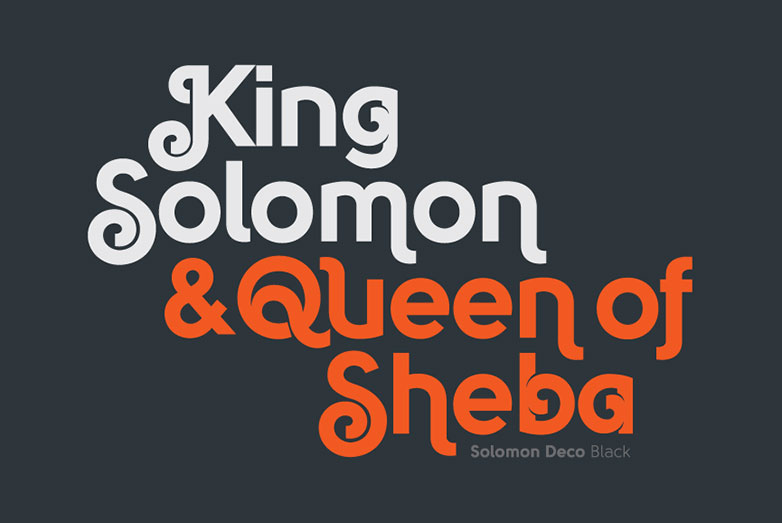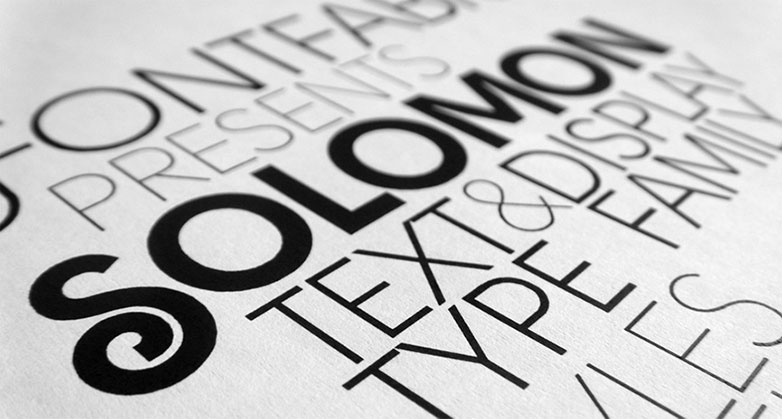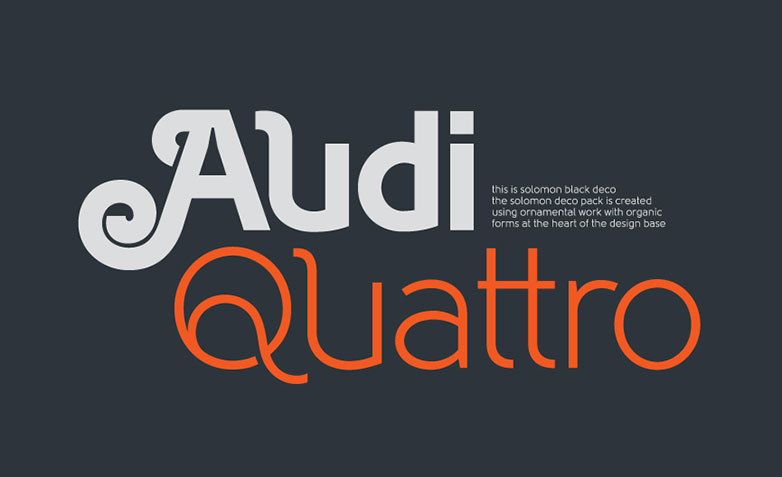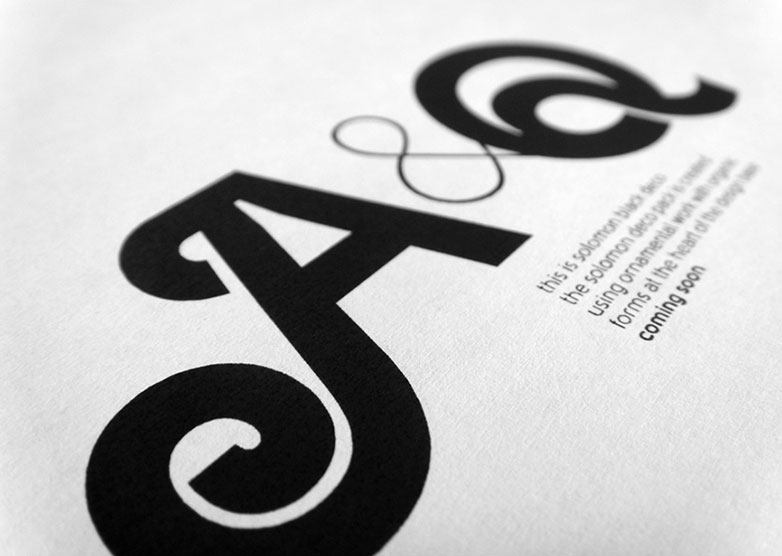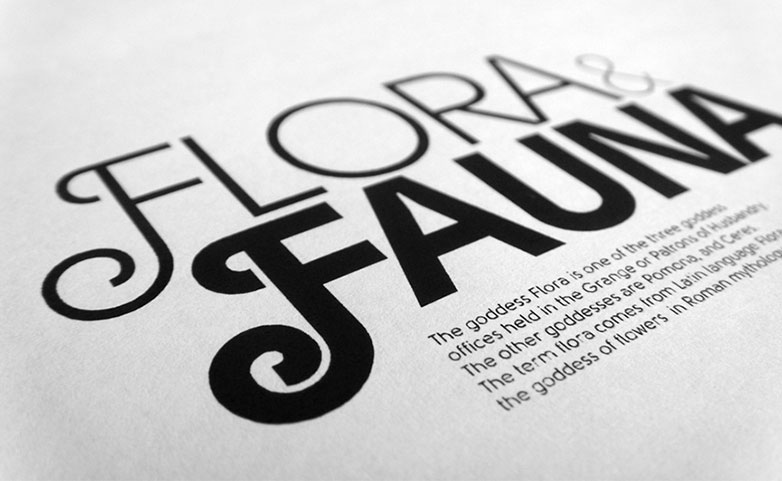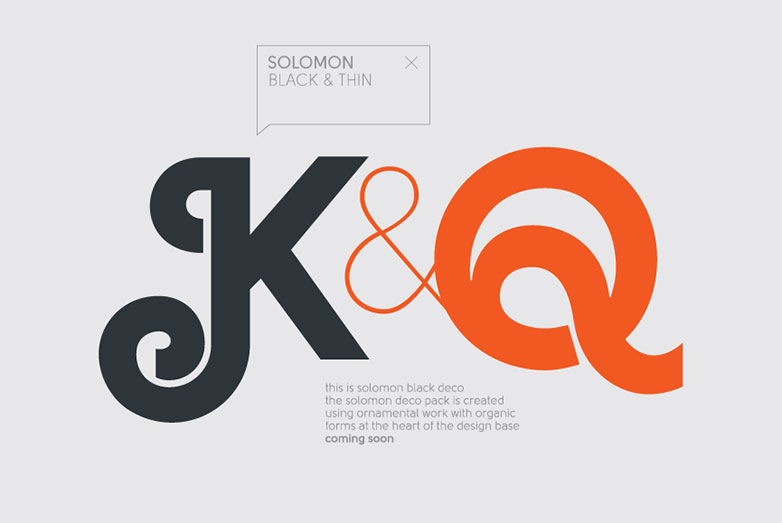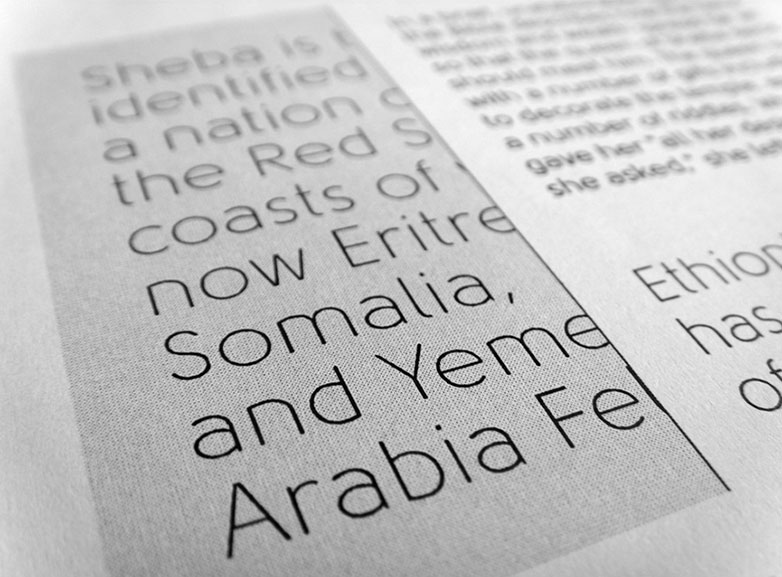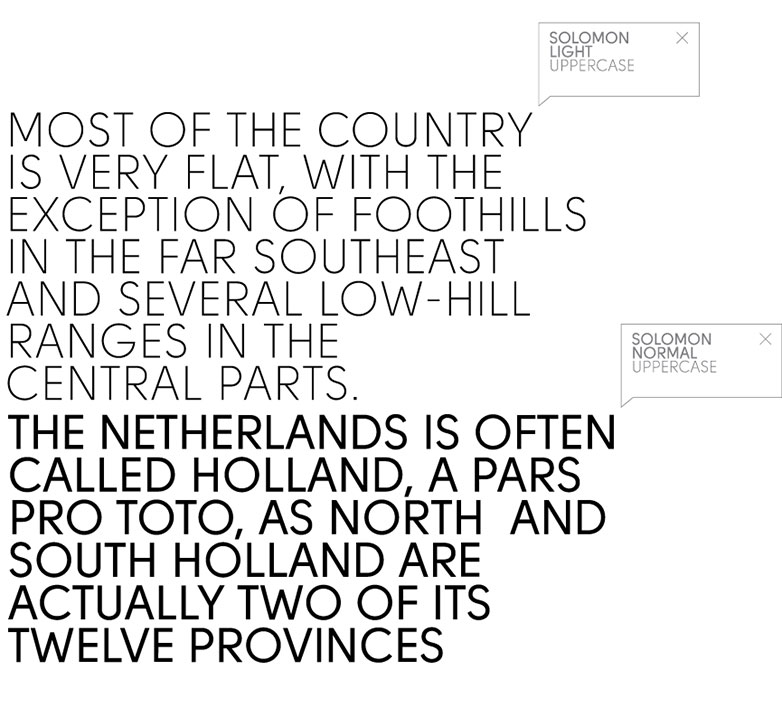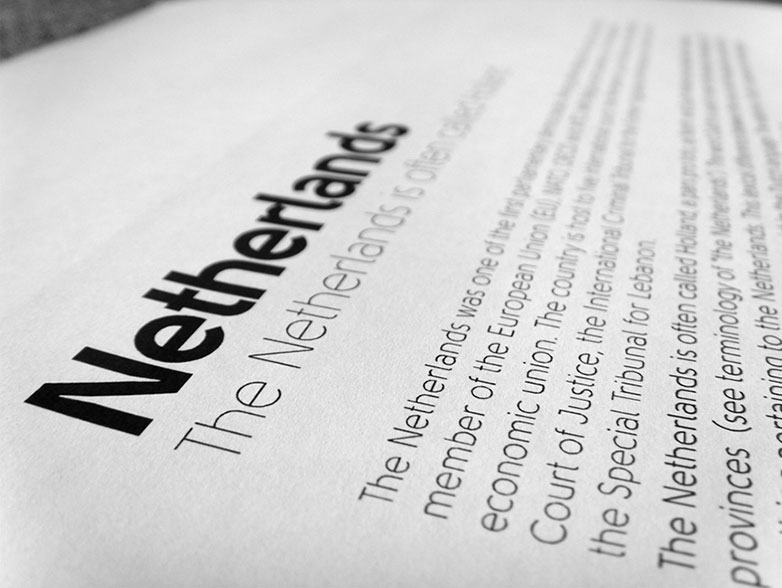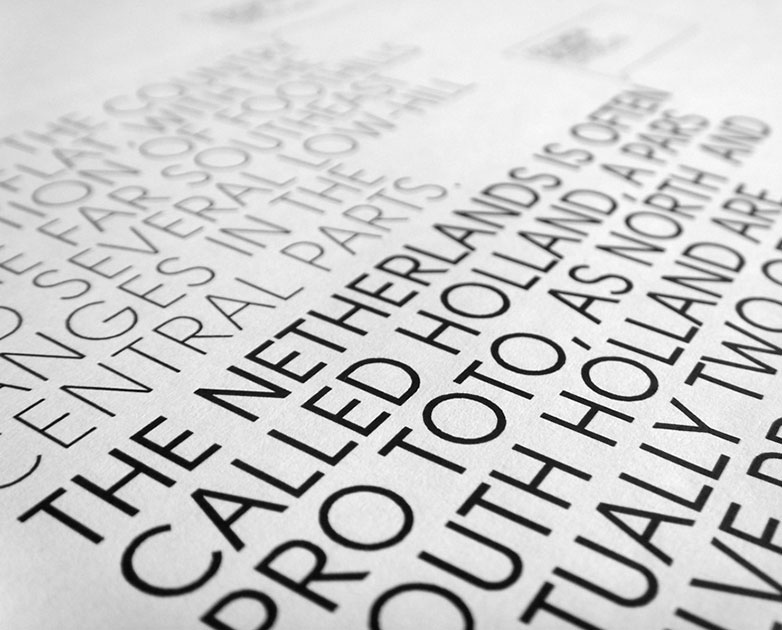
It’s rare that you find a typeface with both legibility and character; the latter often obscures the former.
The family includes 2 different styles in 6 weights, 12 fonts in total. The first style is a utilitarian san-serif, easy to use for body text and is somewhat reminiscent of Akzidenz Grotesk. The second style, based on the first, has a subtle deco-style twist: terminals spiral to completion, adding an organic feel to the otherwise minimalist design.
Particular highlights are the uppercase ‘S’ and ‘Q’. Lowercase characters extend the theme with pleasing scrolling completion of lowercase bowls.